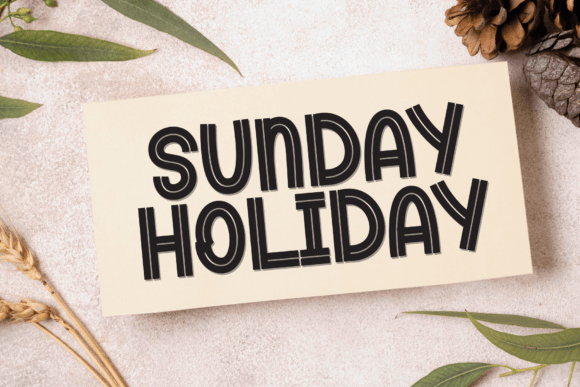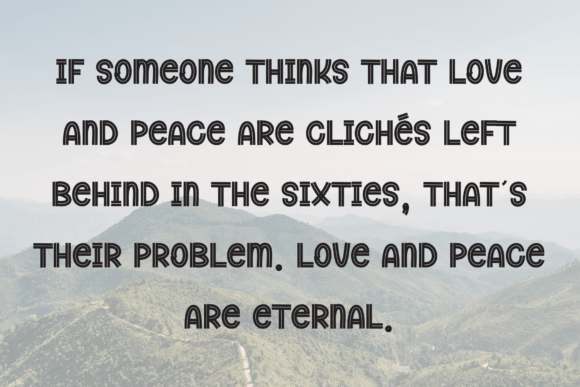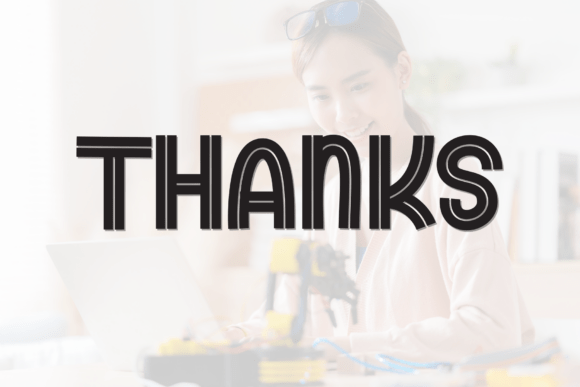
The Besmart Font: A Retro-Futuristic Typeface for the Modern Designer
I still remember the design project that led me to discover the Besmart Font. I was working on a branding campaign for a tech startup, and I needed a font that would capture the perfect blend of innovation and nostalgia. After hours of scouring through font libraries, I stumbled upon Besmart, and it was love at first sight! ✨ The unique, inline style display typeface perfectly embodied the “techno-cool” vibe I was looking for. In this article, I’ll share my experience with Besmart, its features, and how to make the most of it in your designs.
An Honest Review of Besmart Font
What I Love About Besmart Font
- ✨ Unique, inline style display typeface that blends retro nostalgia with modern technical precision
- ✅ Double-lined characters create a sense of depth and movement, giving it a neon-like glow
- ✅ Geometric construction and internal lines provide a structured, architectural feel
- ✅ Pairs exceptionally well with dark, moody backgrounds and vibrant accent colors
While Besmart Font is an excellent choice for bold headlines and logos, it may not be the best fit for body text or small font sizes. ⚠️ The inline style can be a bit tricky to read when scaled down. Additionally, some users may find the font a bit limited in terms of stylistic alternates, but this can also be seen as a deliberate design choice to maintain its distinctive look.
Besmart Font comes with a range of OpenType features and glyphs that can enhance your designs. Look for stylistic alternates, ligatures, and swashes to add more personality to your text. In Adobe applications, you can access these features by using the “Glyphs” panel or the “OpenType” menu.
The Designer Inspiration Behind Besmart Font
The Besmart Font was designed with the goal of capturing the essence of retro-futurism in a modern, digital age. The designer, inspired by the neon lights of city streets and the sleek interfaces of futuristic technology, created a font that embodies the perfect blend of nostalgia and innovation. The result is a unique typeface that commands attention and adds a touch of “techno-cool” to any design.
| What is the best use case for Besmart Font? | Besmart Font is ideal for bold headlines, logos, and titles, particularly in designs that require a touch of “techno-cool”, such as gaming graphics, tech startups, and music festival posters. |
| Can I use Besmart Font for body text? | While Besmart Font can be used for body text, it may not be the best choice due to its inline style and potential readability issues at small font sizes. |
| Is Besmart Font suitable for print designs? | Yes, Besmart Font can be used for print designs, particularly those that require a bold, eye-catching look, such as posters, flyers, and brochures. |
| Can I use Besmart Font for web designs? | Yes, Besmart Font can be used for web designs, particularly for headings and titles, but ensure you test its readability at different screen sizes and resolutions. |